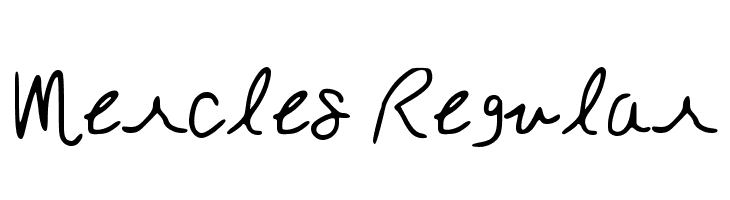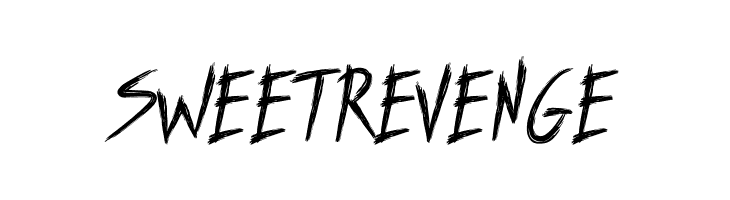
A bold, brush-style font with dynamic, hand-drawn strokes.
A bold, playful font with exaggerated curves and angles, ideal for eye-catching designs.
A playful and casual handwritten font with fluid, expressive strokes.
A bold slab serif font with a modern yet classic appeal.
A decorative font with farm-themed illustrations for each character.
A lively cursive script font with fluid, connected letters and elegant curves.
A bold, geometric font with a modern and futuristic style.
A bold, playful font with a hand-drawn, energetic style.
A modern, elegant font with thin, elongated letterforms and a sleek, sophisticated style.